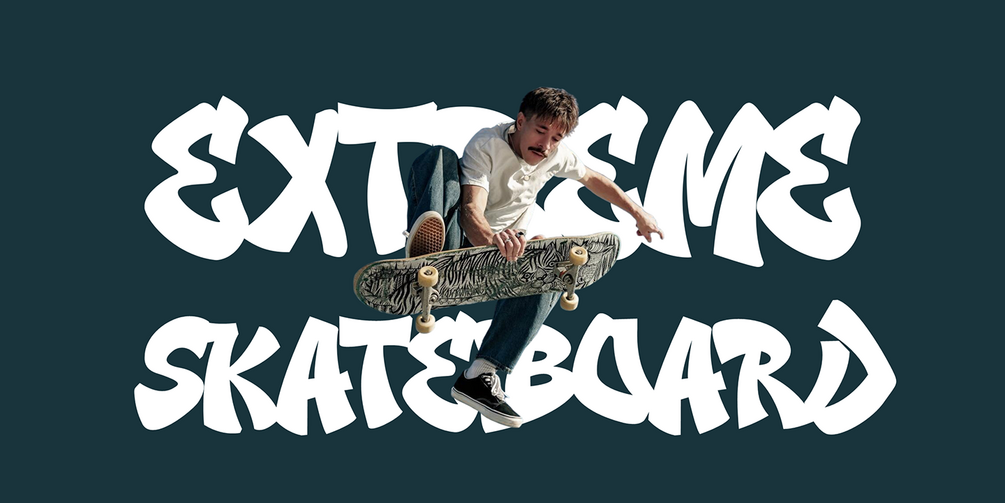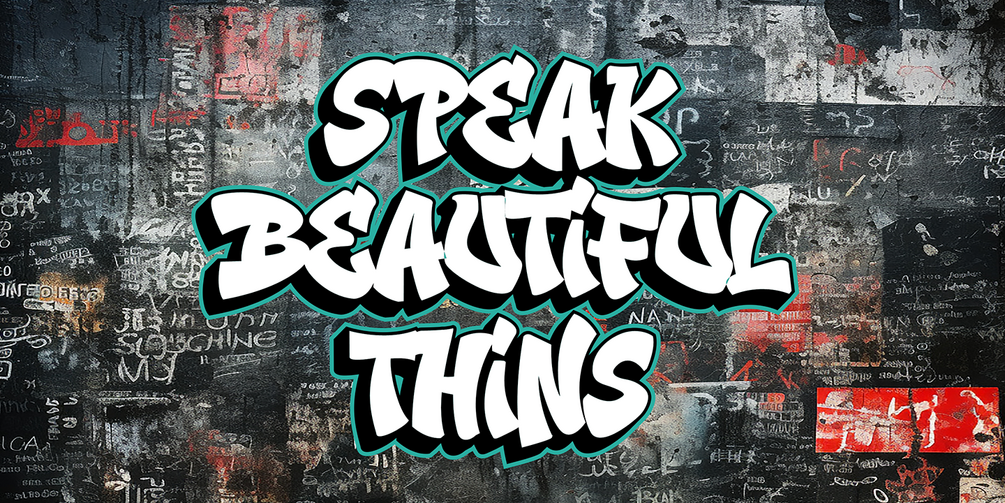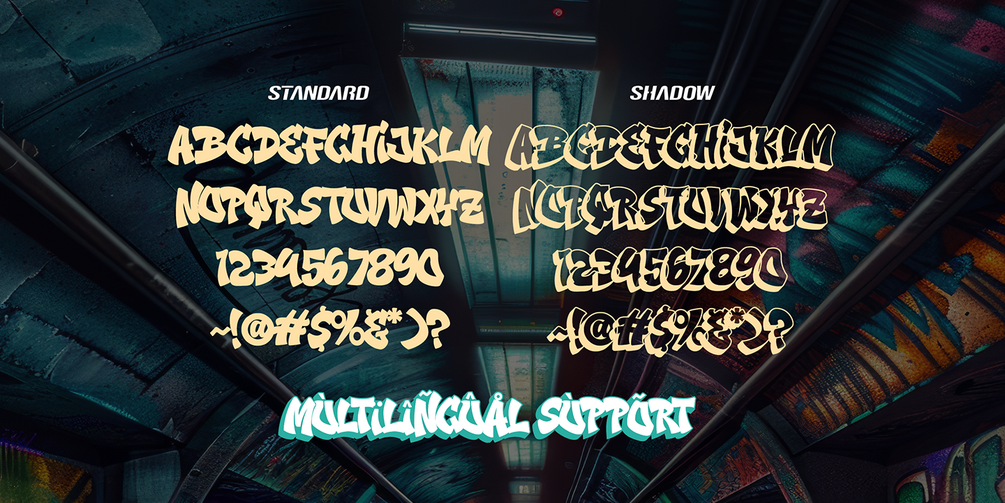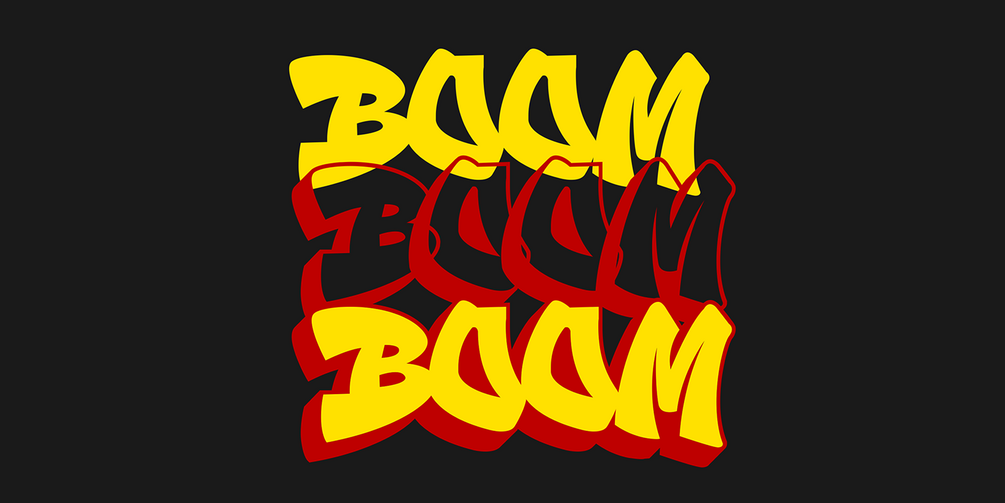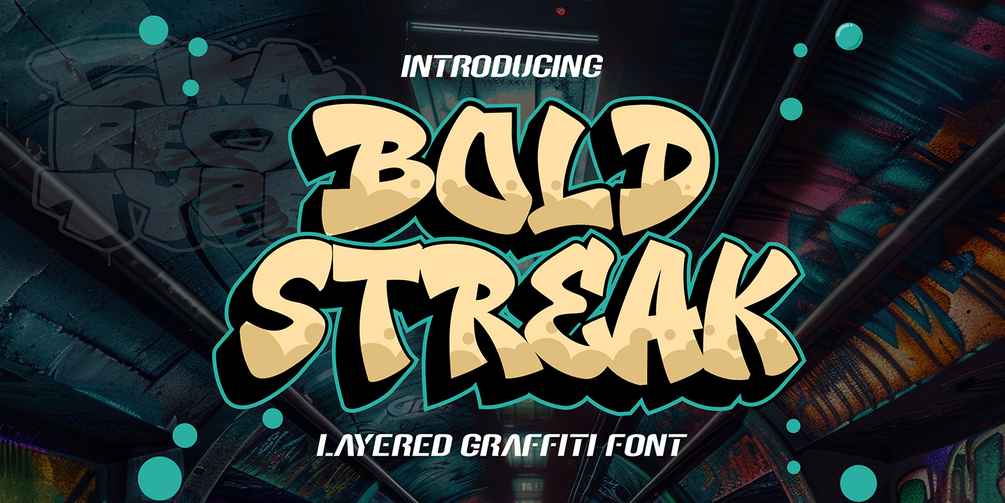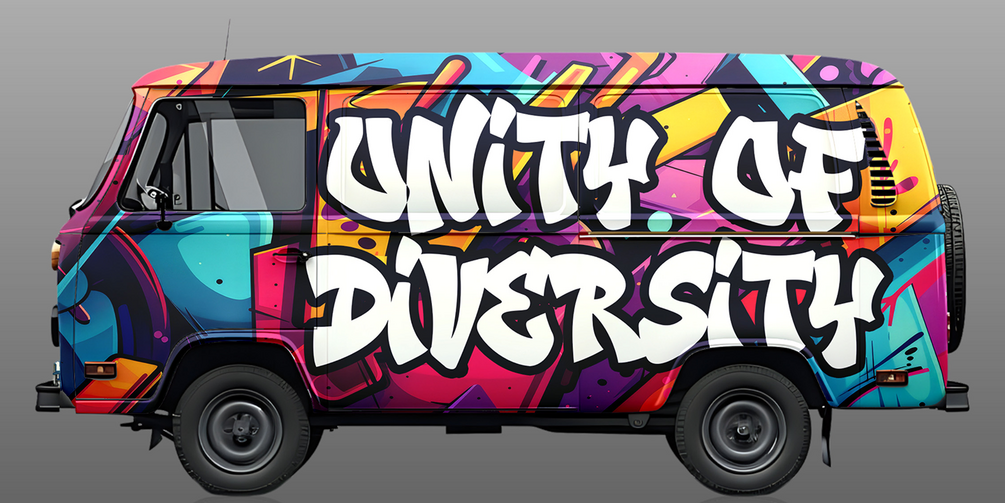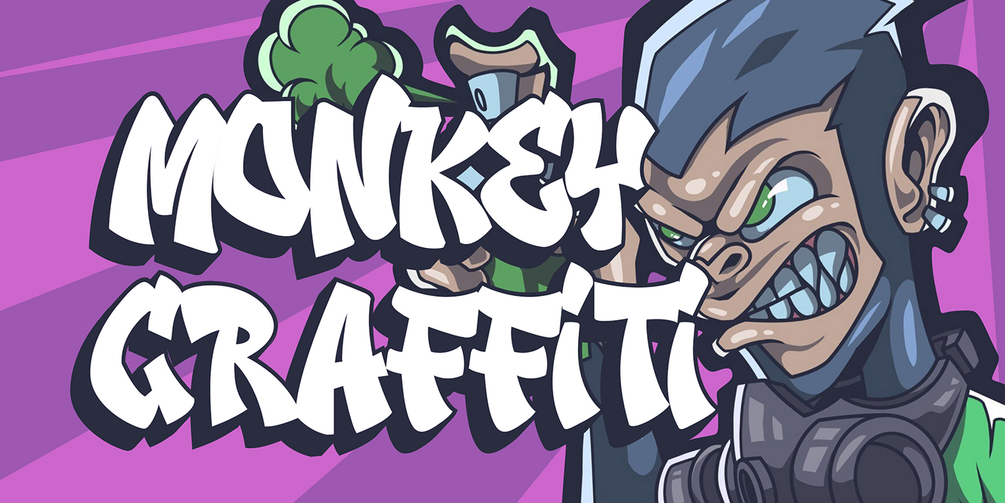
Bold Streak is an awesome 3D layered graffiti font that brings boldness and depth to your designs. Featuring strong and dynamic letterforms, this font is perfect for street art, urban branding, posters, album covers, and eye-catching typography projects. With its layered styles, including solid, outline, and extrude, Bold Streak allows for endless creative possibilities, adding a sense of dimension and energy to your compositions. Whether you're creating edgy graphics, hip-hop designs, or graffiti-inspired artwork, this font delivers a raw, street-style aesthetic that stands out in any setting.
• Multilingual Support
• Versatile for branding, headline, or printing product